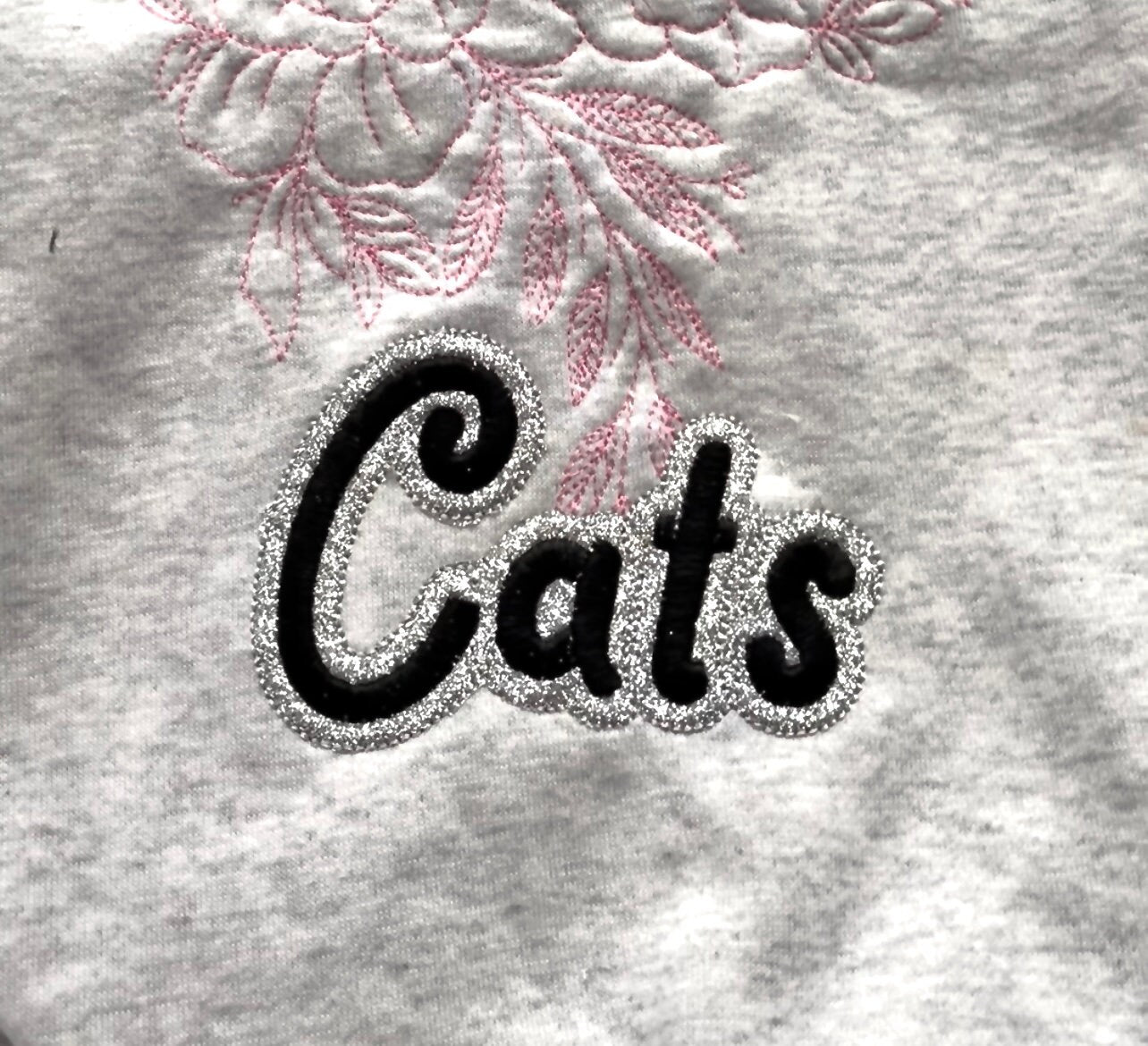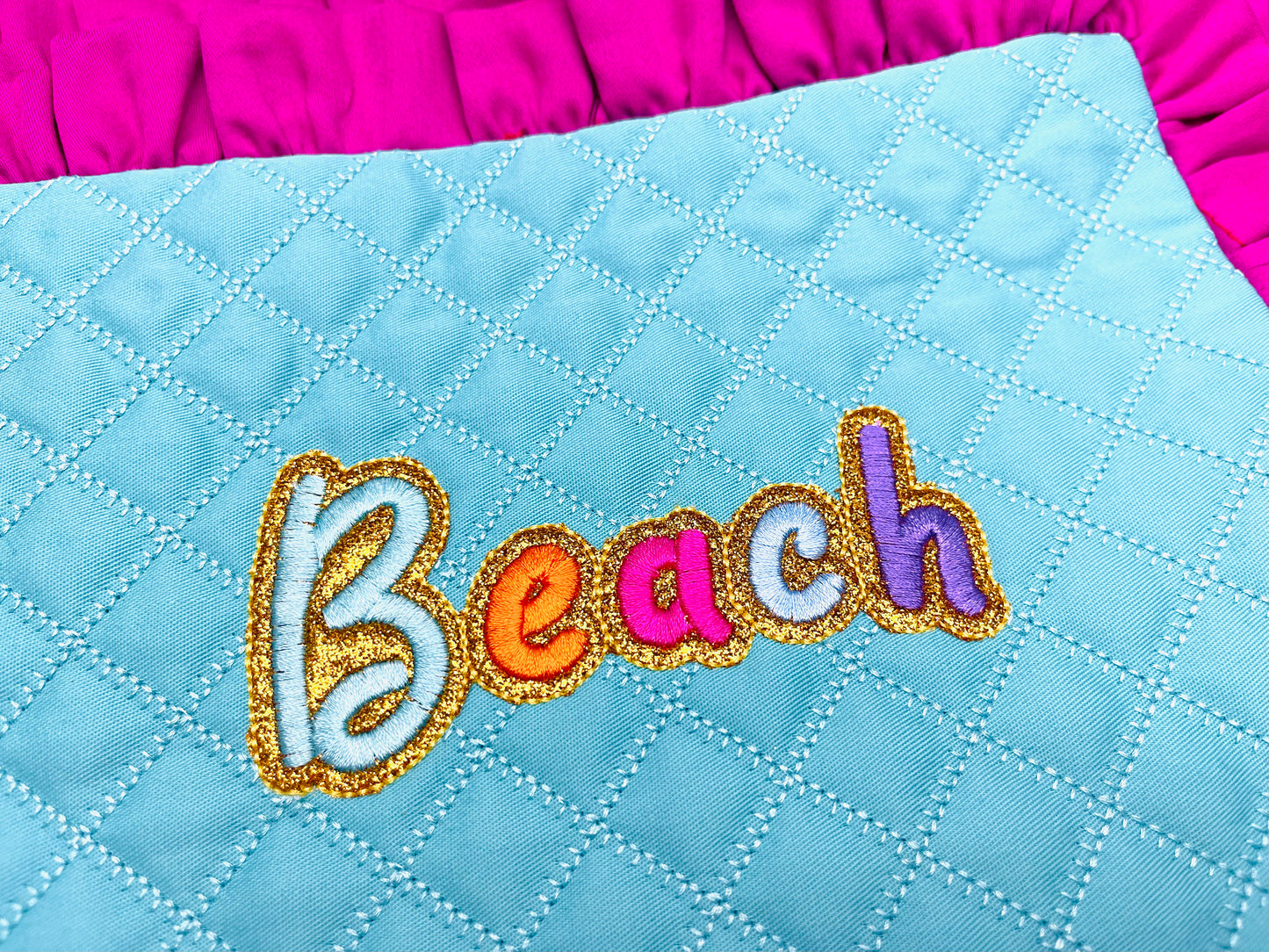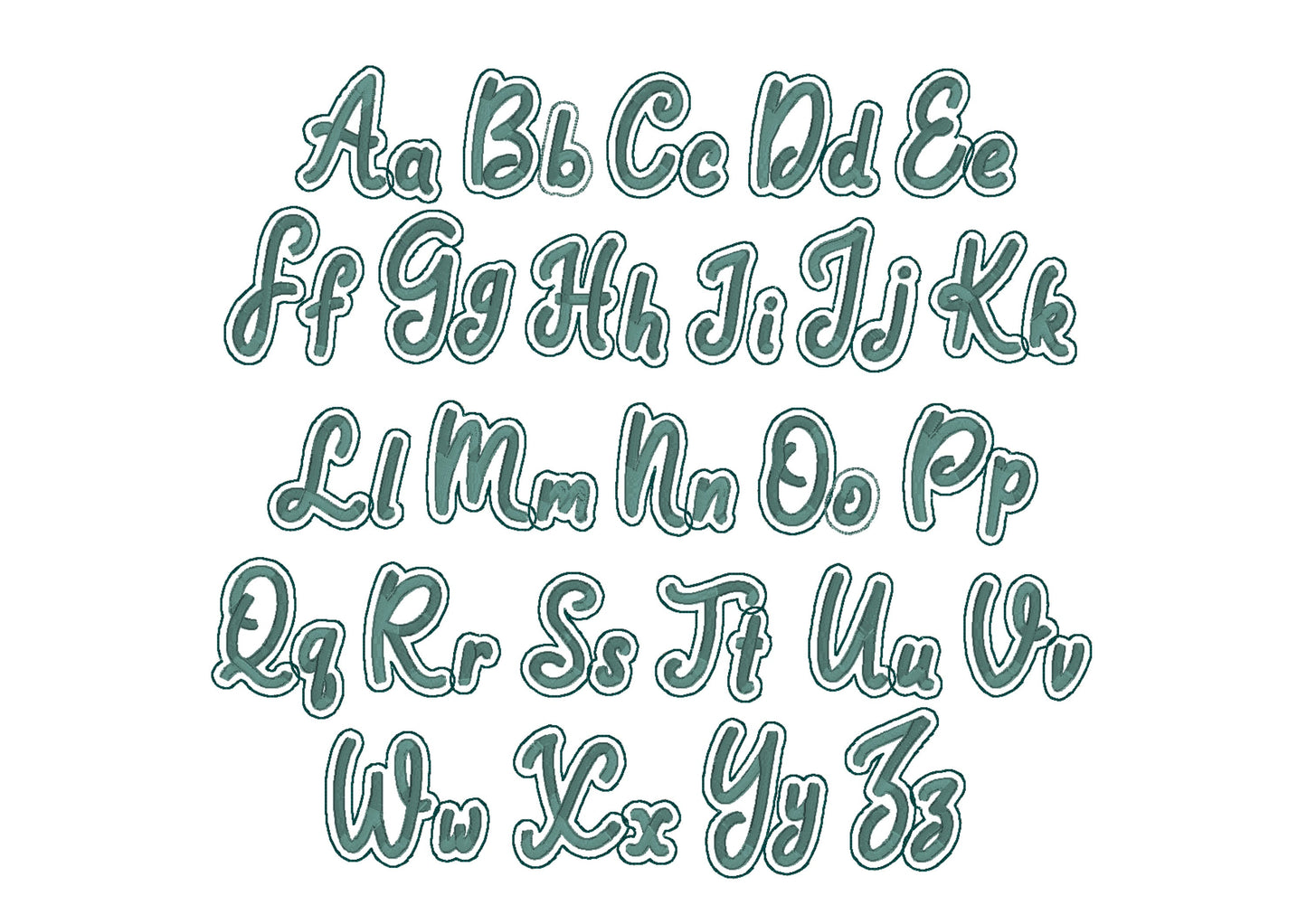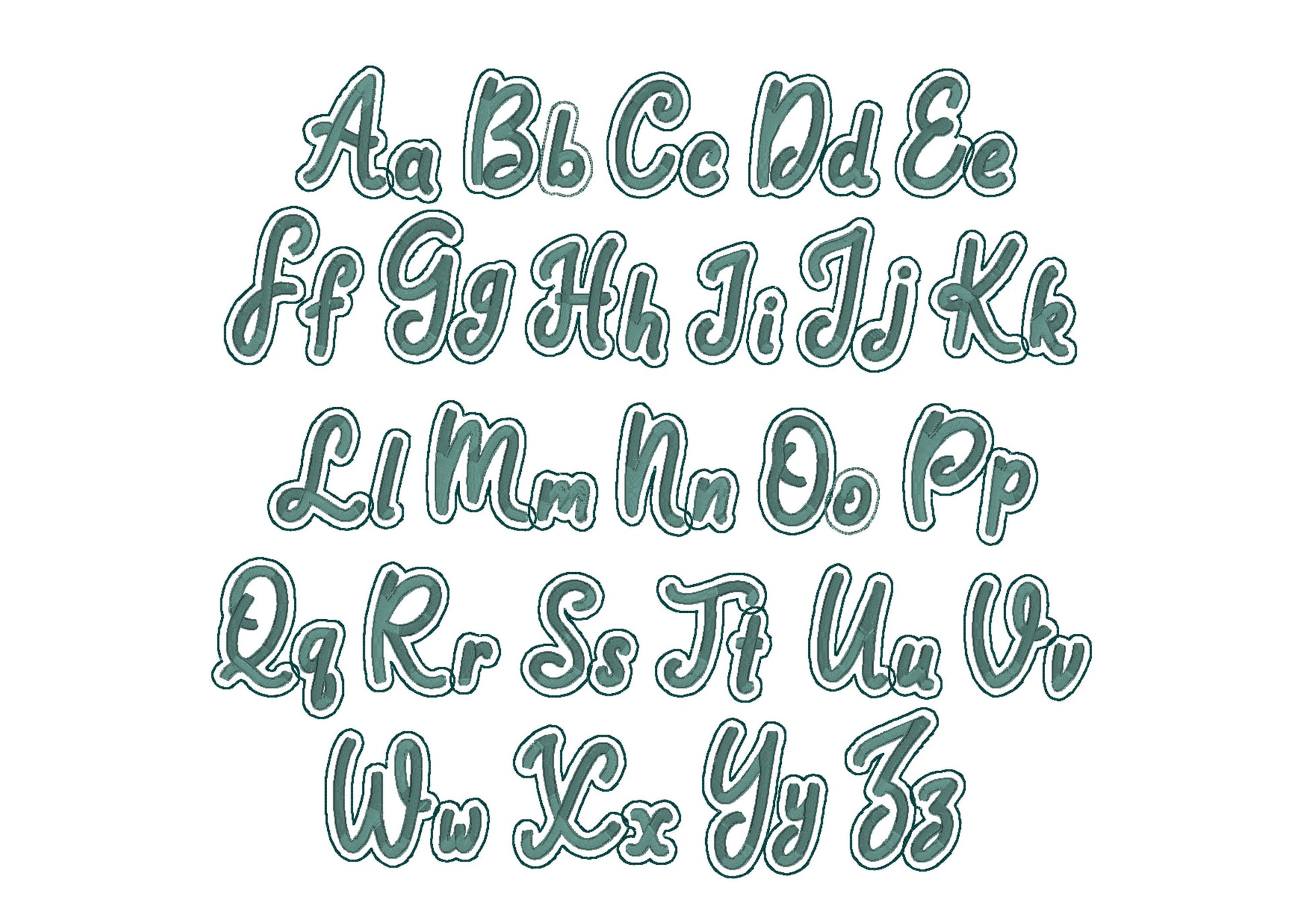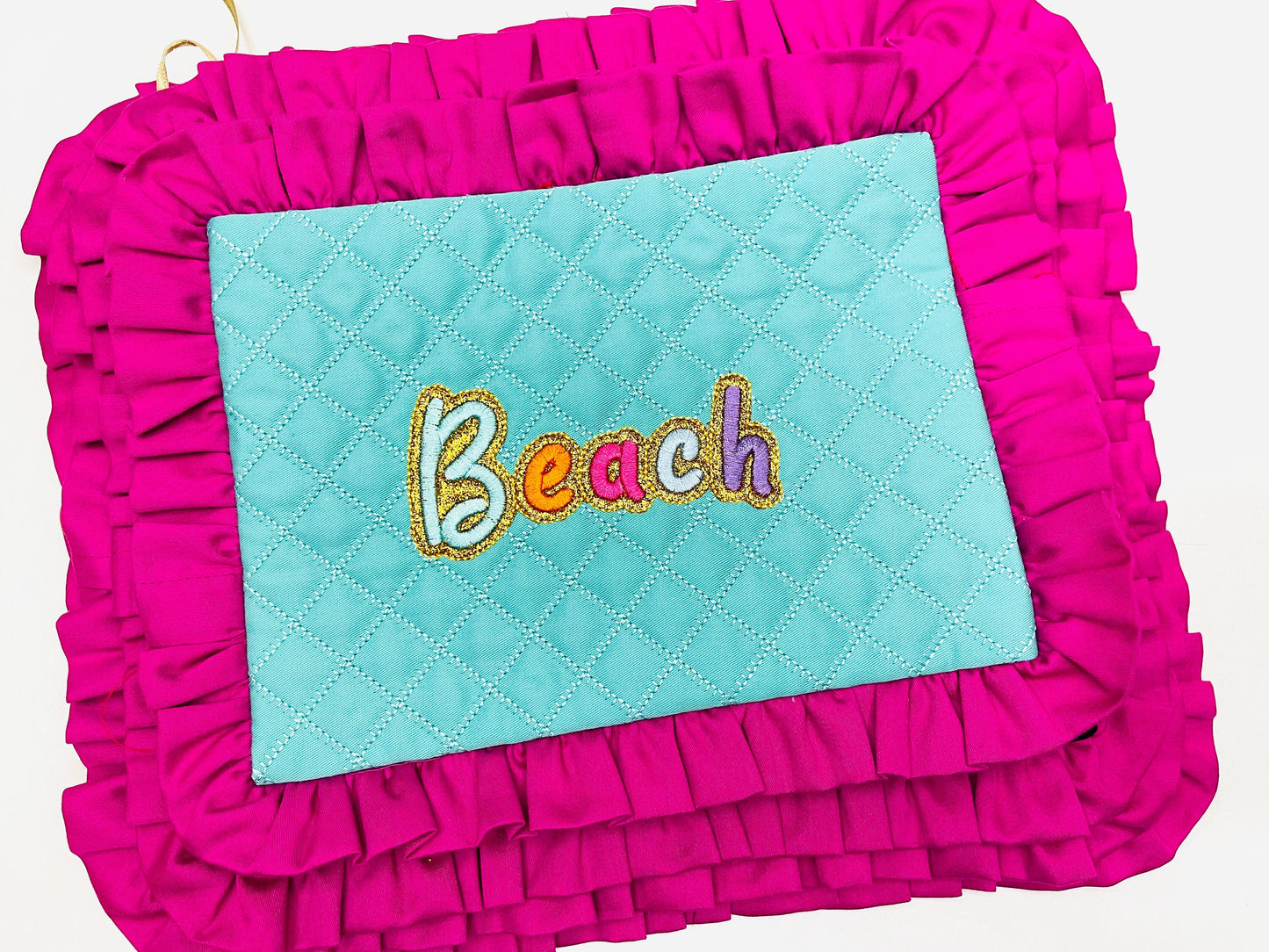
Or click to open the linkA handwritten calligraphy font in satin stitch with a glitter vinyl layer, for sparkly names and words on shirts and bags.
Where letters join, the lines overlap; this does not show with glitter vinyl or glitter faux leather, so pick a thread close to the glitter shade. Uppercase and lowercase letters in six sizes: 1, 1.3, 2.1, 2.6, 3.1 and 3.7 inches.